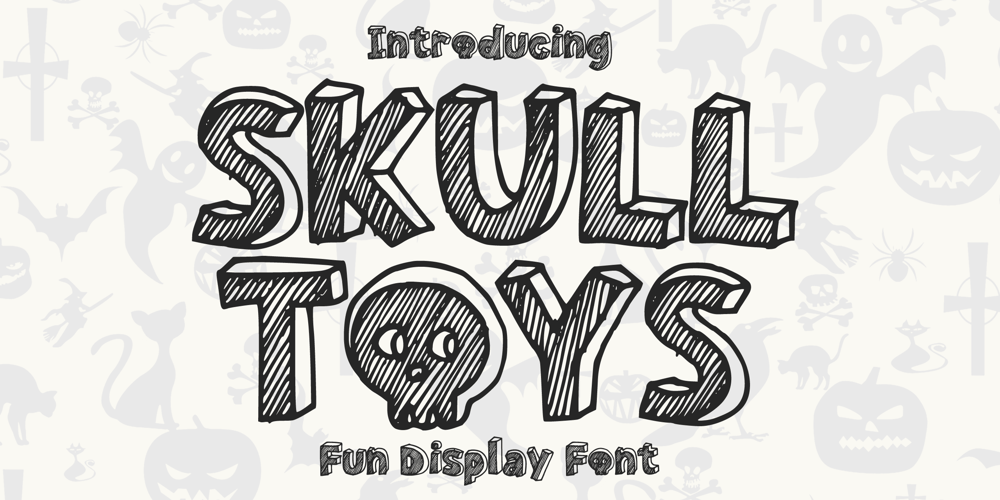
Skull Toys Font Family was designed by Gabriel Valentinus and published by Mvmet. Skull Toys contains 1 styles and family package options. Skull Toys is a cool rough retro-looking display font with halloween twist, you’ll love it if you want to create something with fun halloween theme. It will elevate a wide range of design projects to the highest level. You can use this font for many design ideas such as stickers, t-shirt designs, amazing logo designs, magazine or book covers, comics, cartoon drawings, and many more. This font will add a cool touch to your designs!